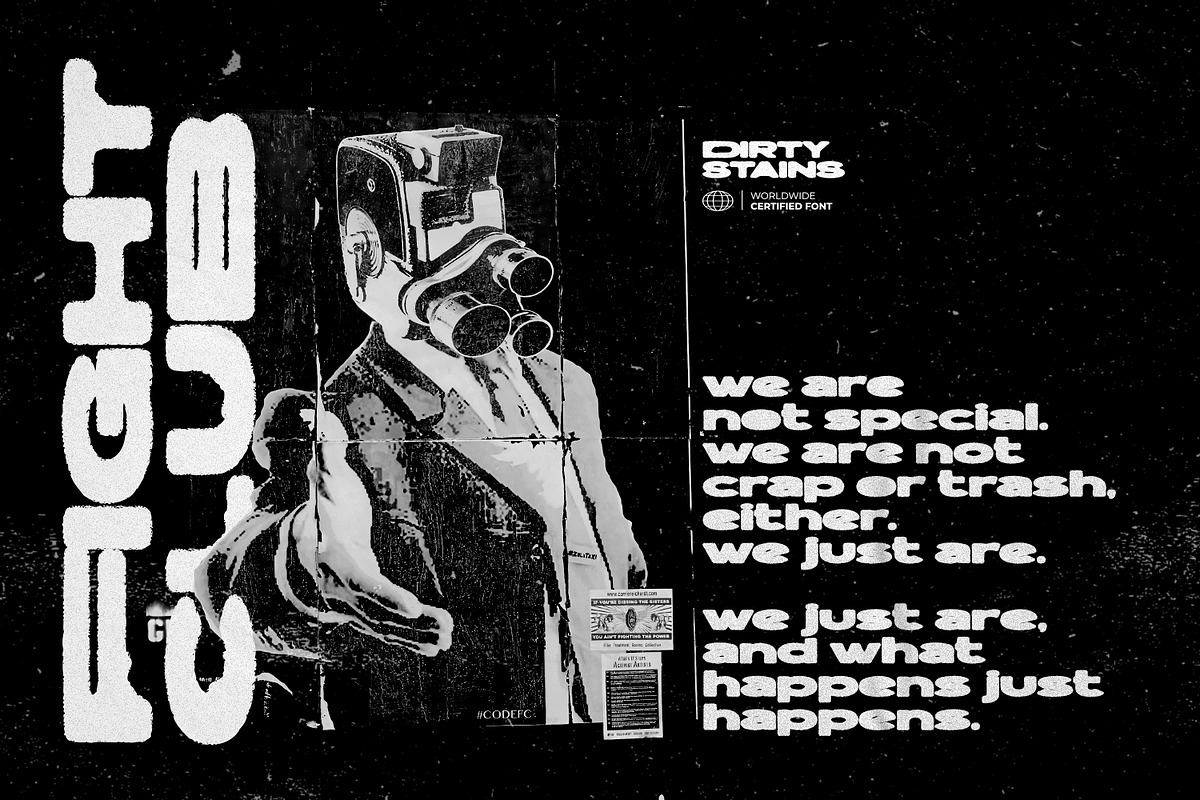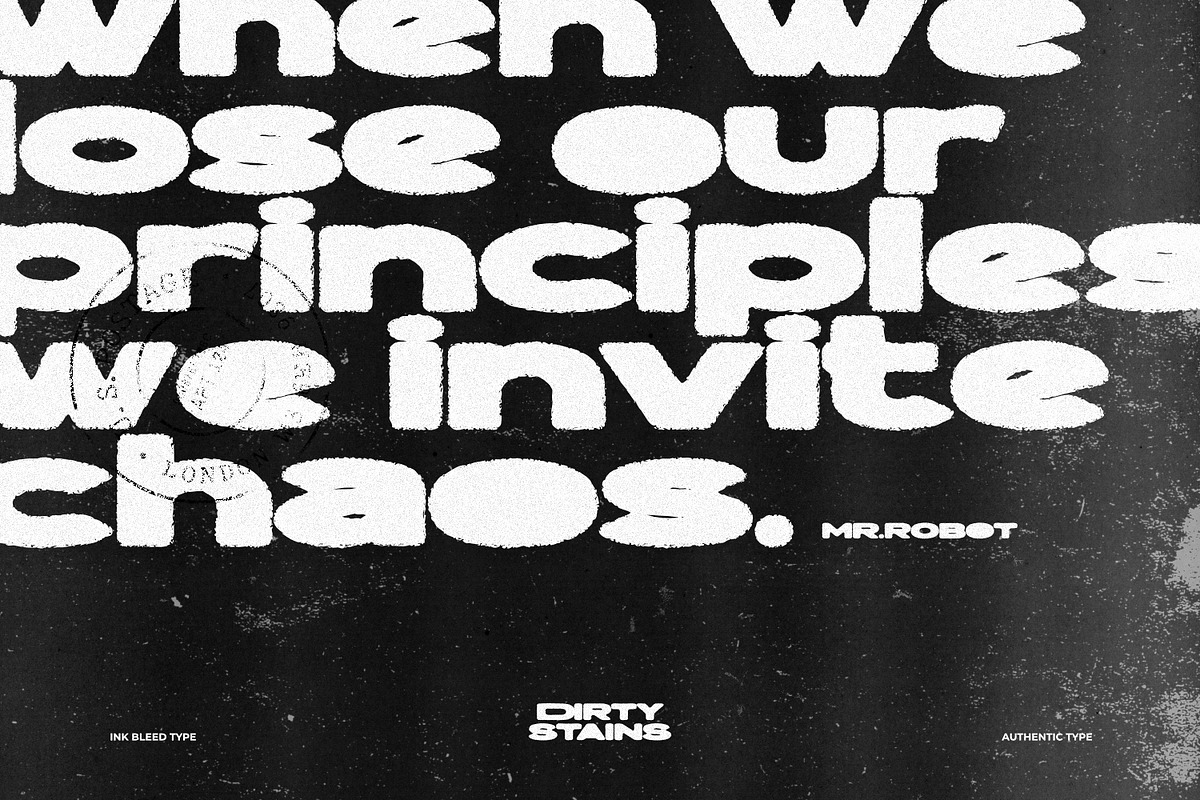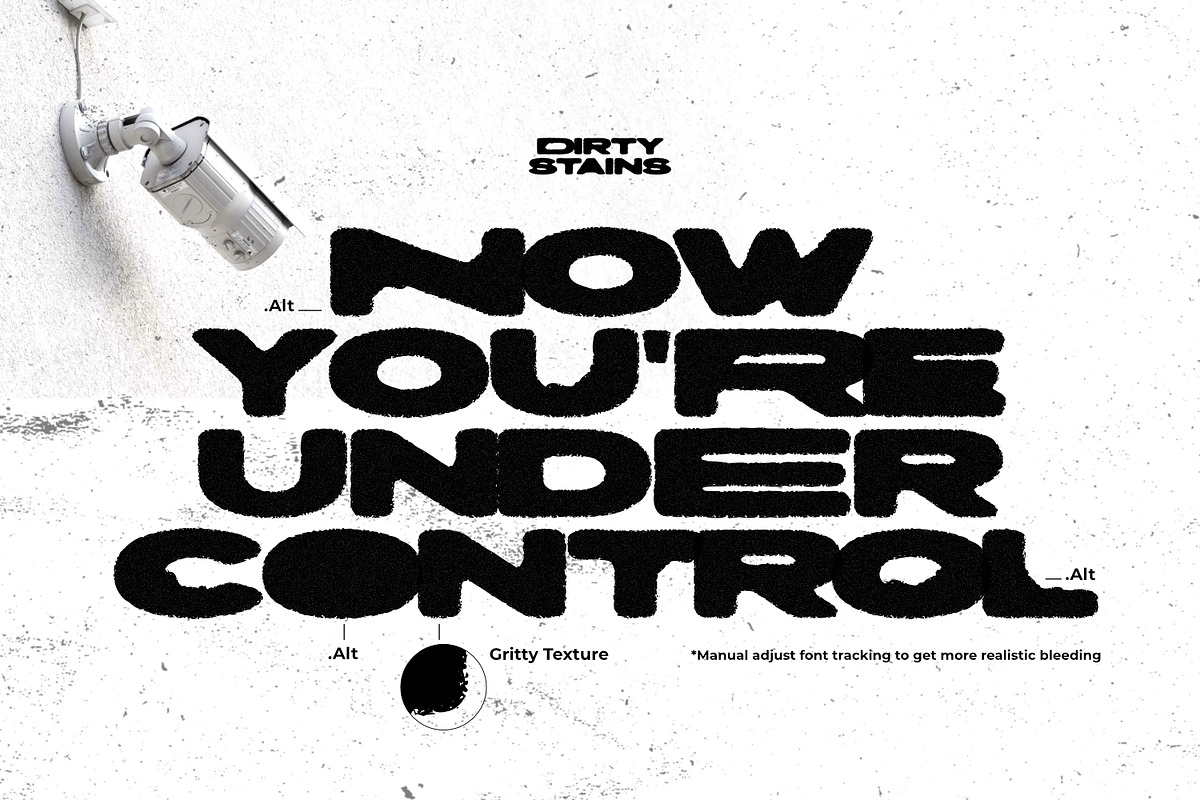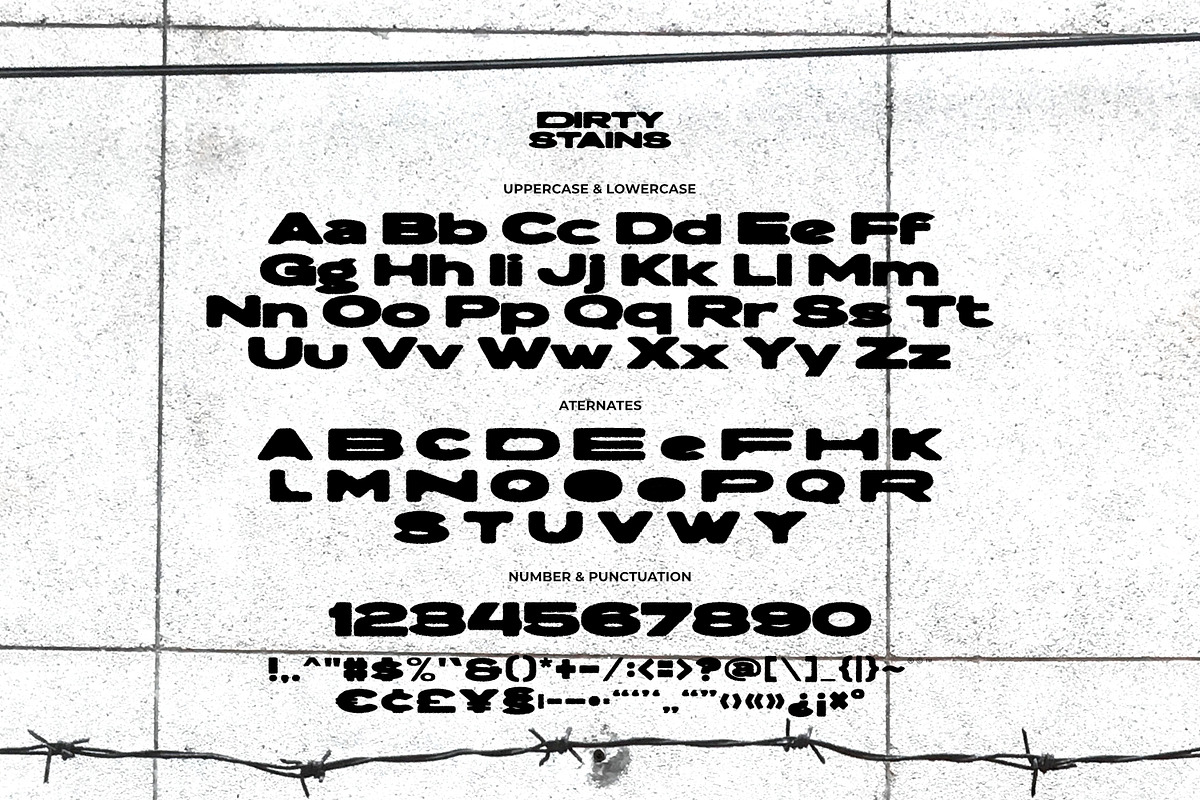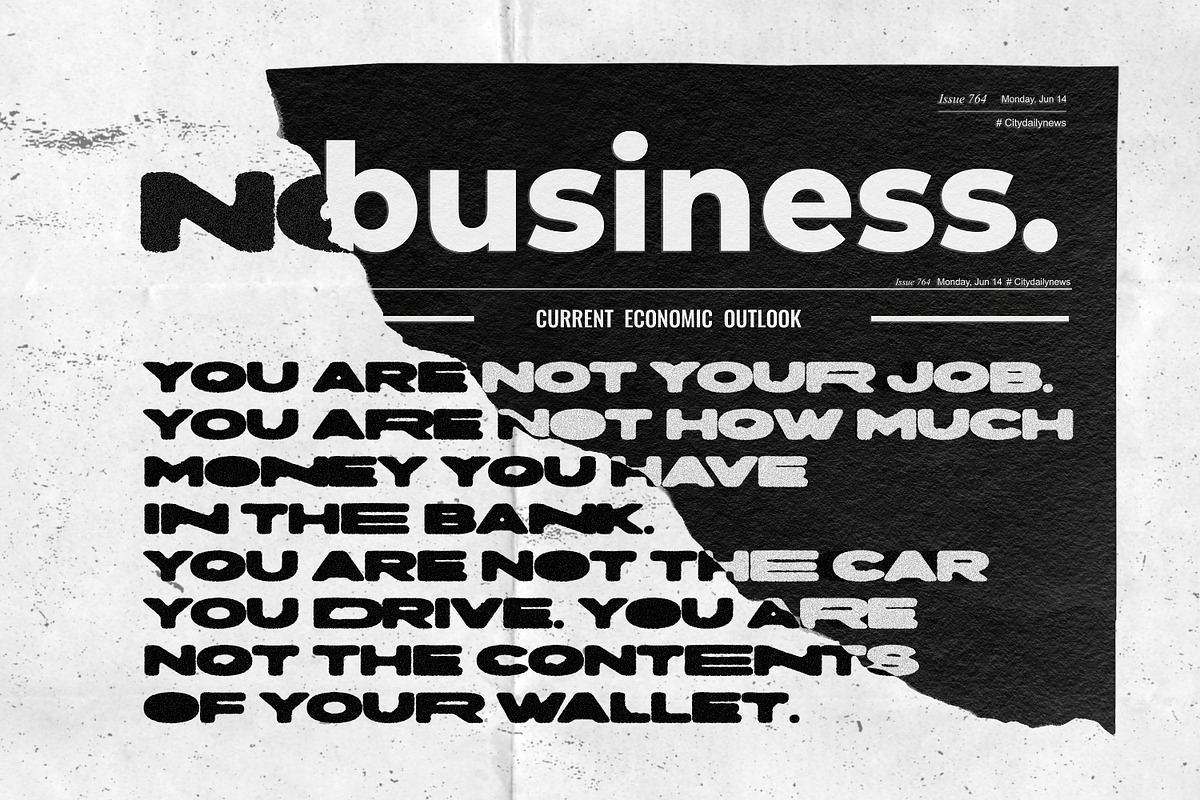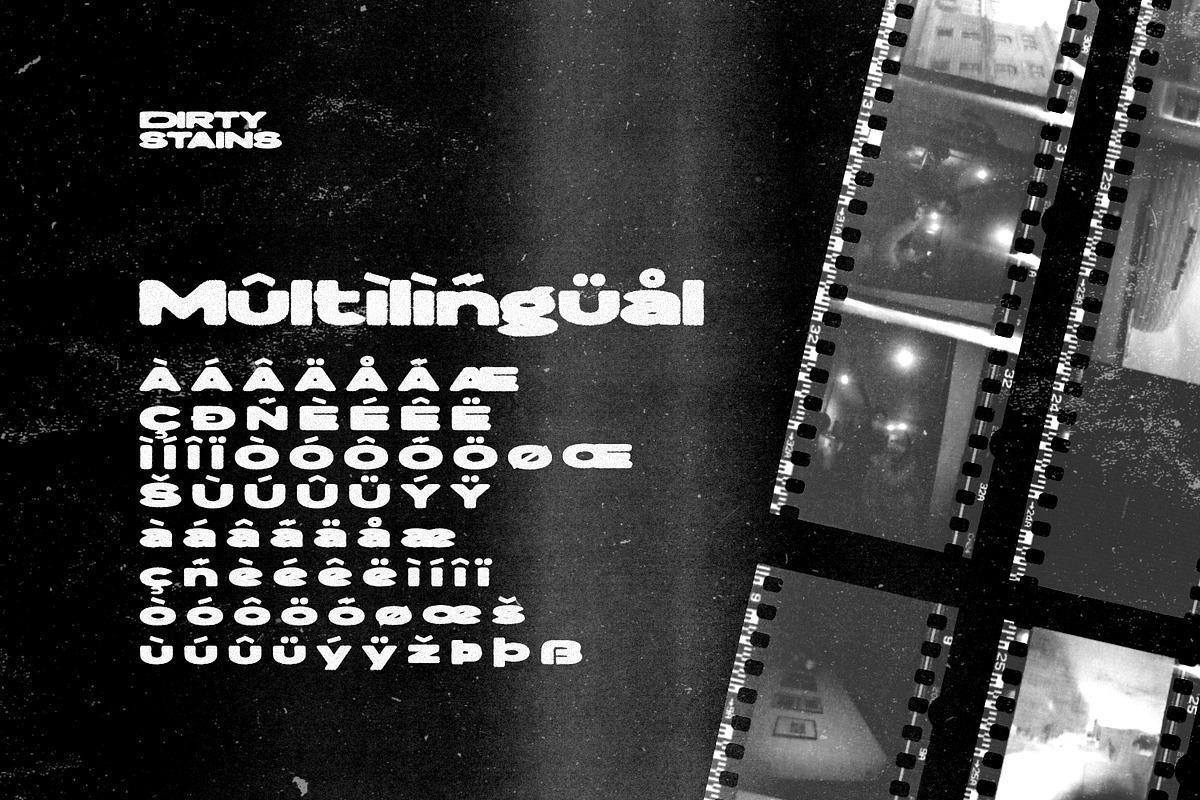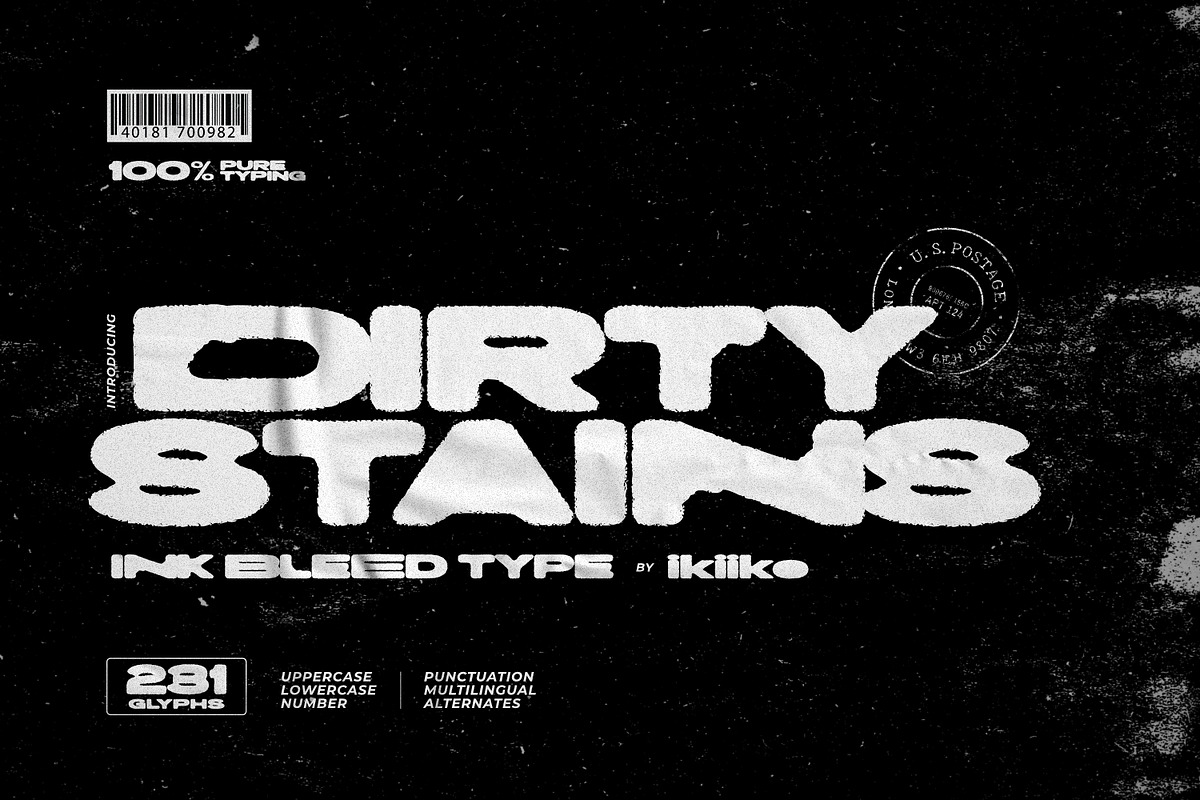
Dirty Stains - Ink Bleed Type
Introducing Dirty Stains - Ink Bleed Type, created by ikiiko
Dirty Stains embracing the fusion of ink and structure. This strong sans-serif typeface provides an emotional experience rather than just letters on a page. Each character exudes the wild energy of city streets, and the ink spill effect blurs the distinction between chaos and creativity.
The rough forms of the Dirty Stains typeface bring you to the center of street culture while encapsulating the spirit of resistance and rebellion. Each letter serves as a tribute to the beauty that can be found in flaws, wherein jagged edges and ink-smeared textures serve as examples of unrestrained creativity.
This typeface is perfect for an movie title, poster, magazine layout, fashion stuff, book cover, quotes, or simply as a stylish text overlay to any background image.